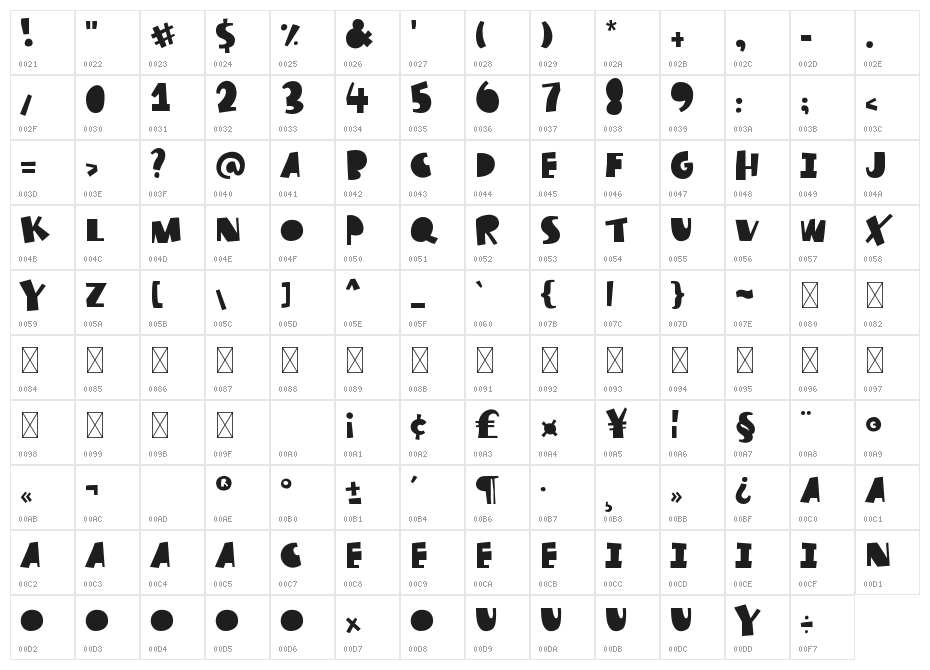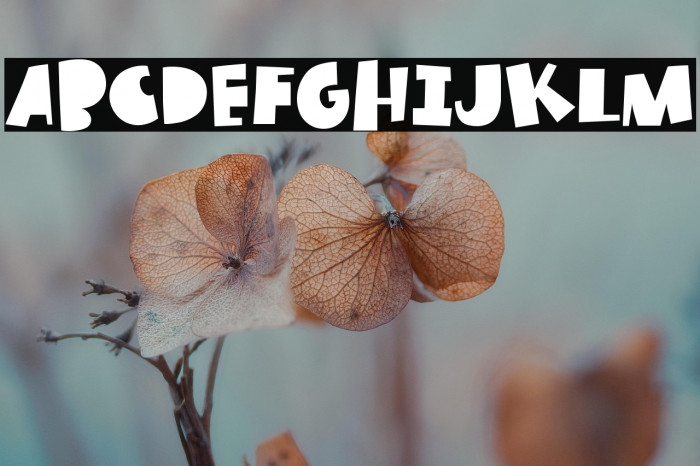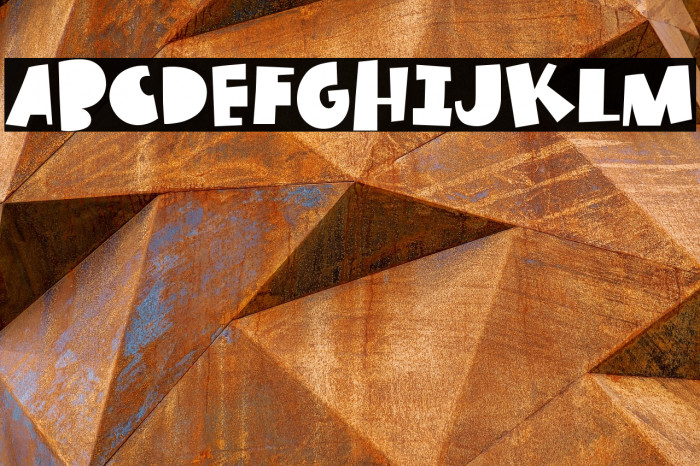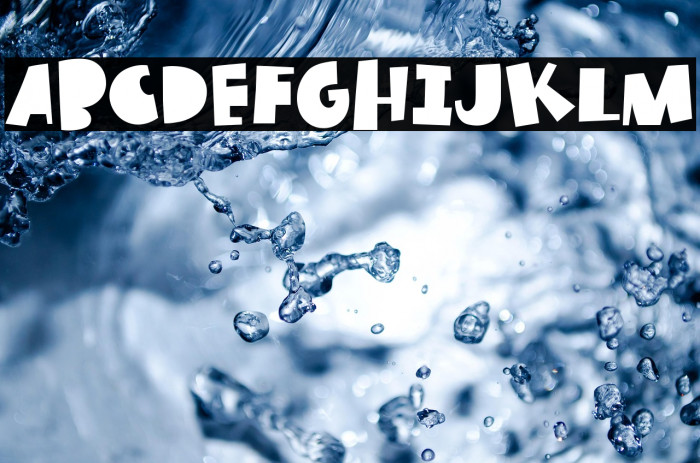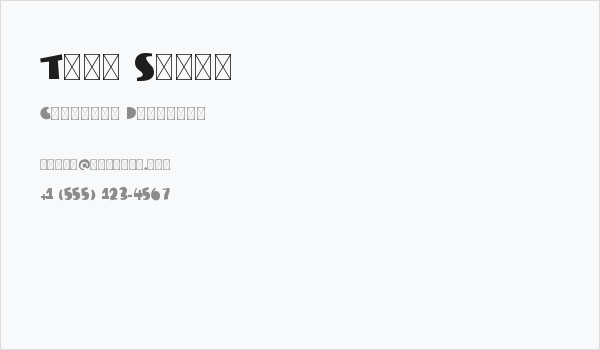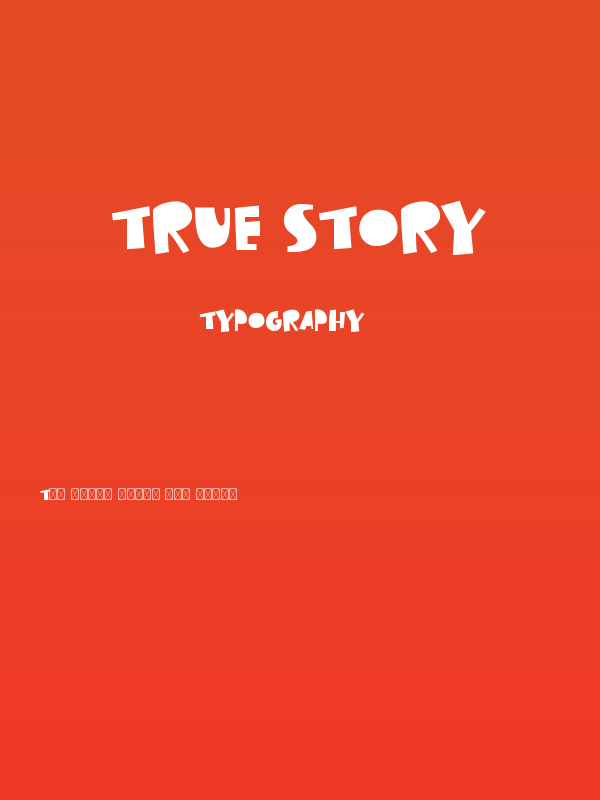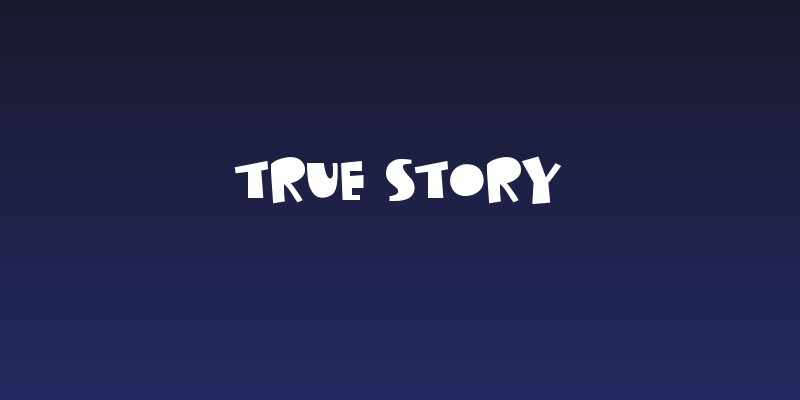
True Story Font
True Story Description
This font features a bold and playful design, characterized by its chunky, irregular letterforms that convey a sense of fun and spontaneity. The letters have a hand-drawn appearance, with varying stroke widths that add to its whimsical charm. The overall style is casual and informal, making it ideal for projects that require a touch of humor or creativity. The numbers and special characters maintain the same lively aesthetic, ensuring consistency across all text elements. This font's unique style makes it stand out, perfect for capturing attention in any design.
| Proposed Projects | Ideal for children's books, comic strips, playful branding, and creative posters. |